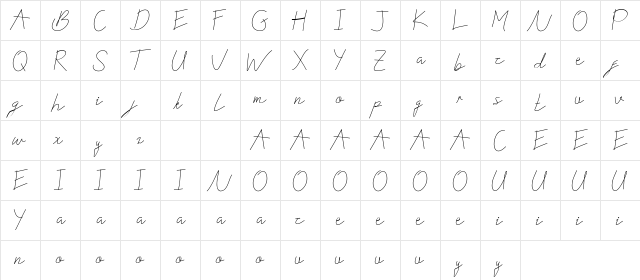
Nikeisha DEMO Regular
Design Context for Nikeisha DEMO Typeface
Nikeisha DEMO is a composed and adaptable typeface that performs quietly and consistently across a wide range of design contexts.